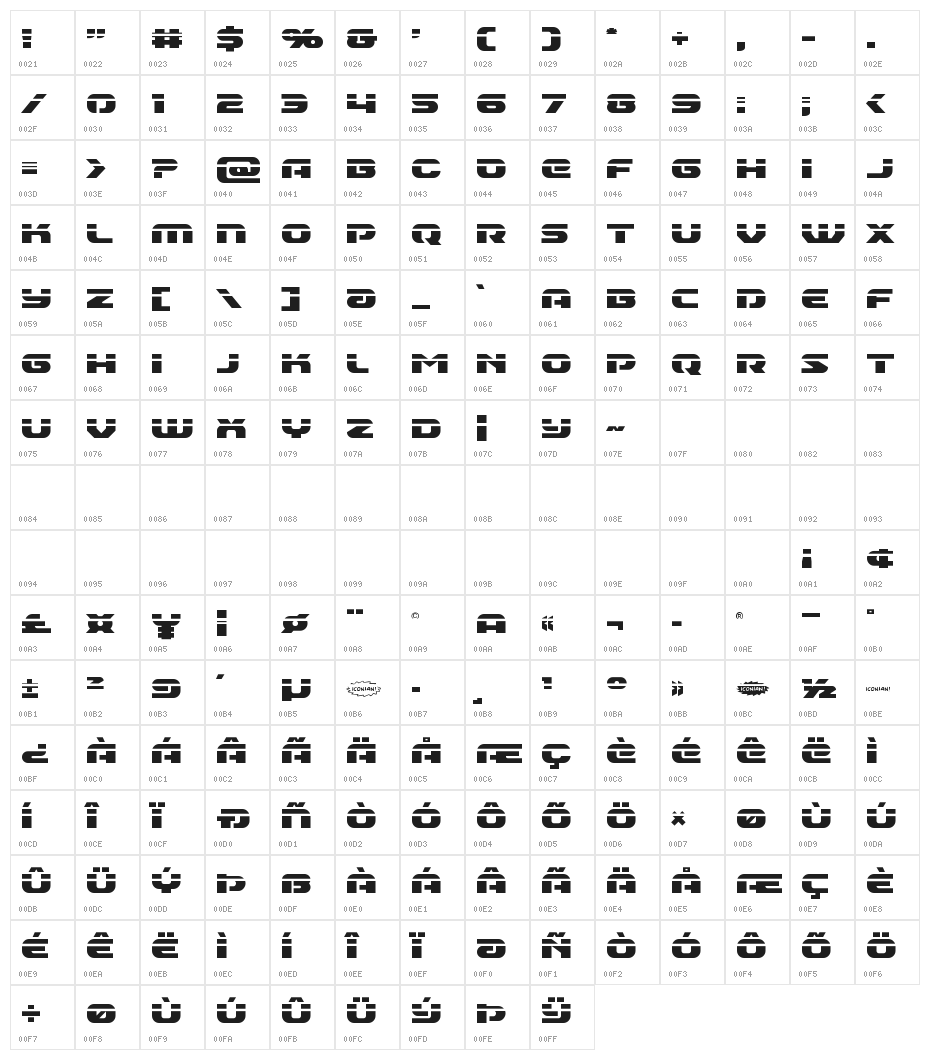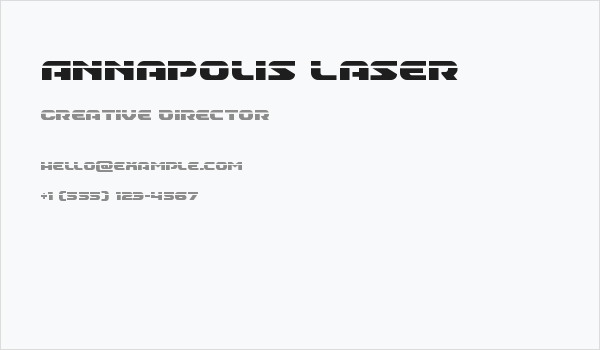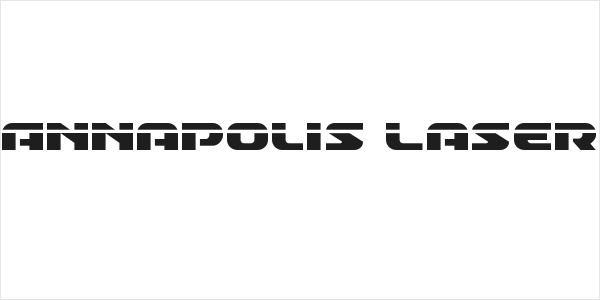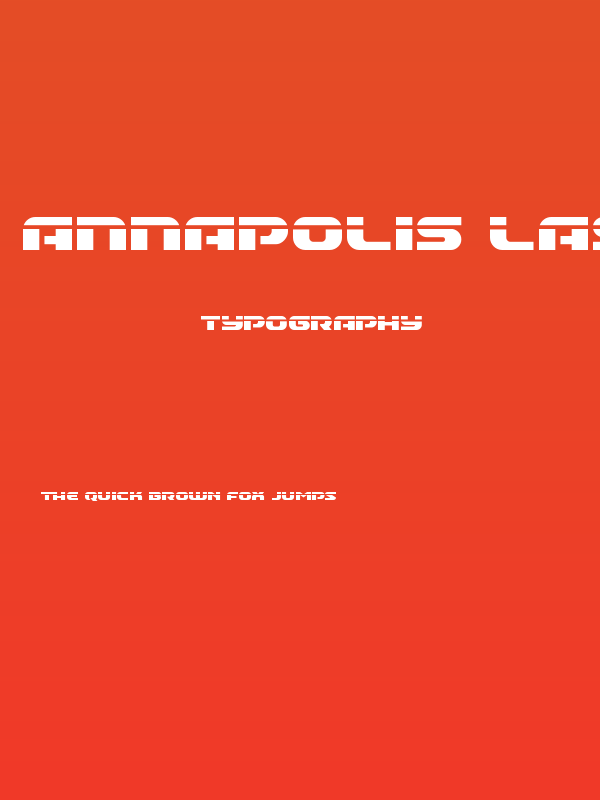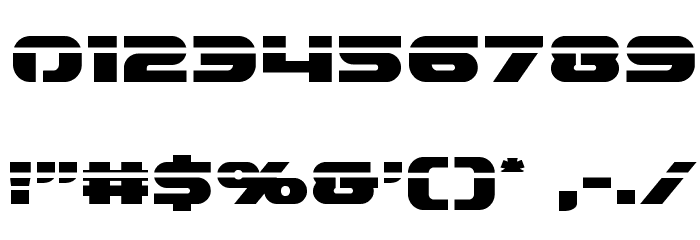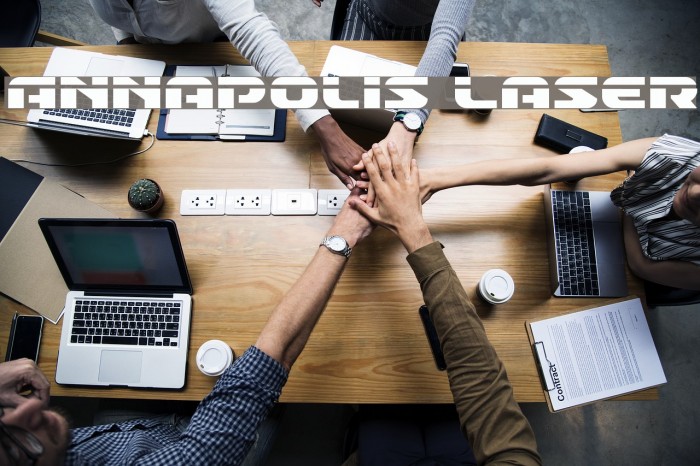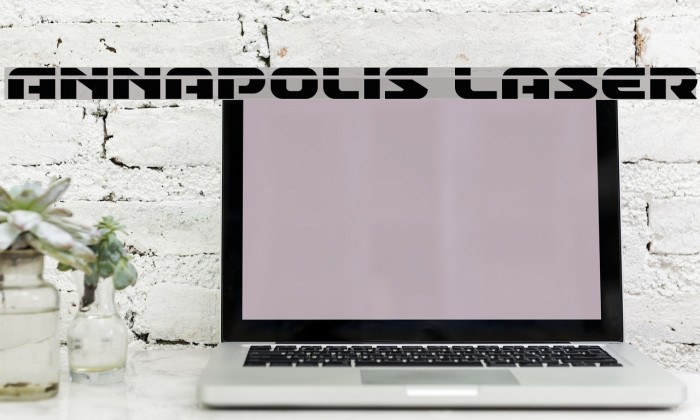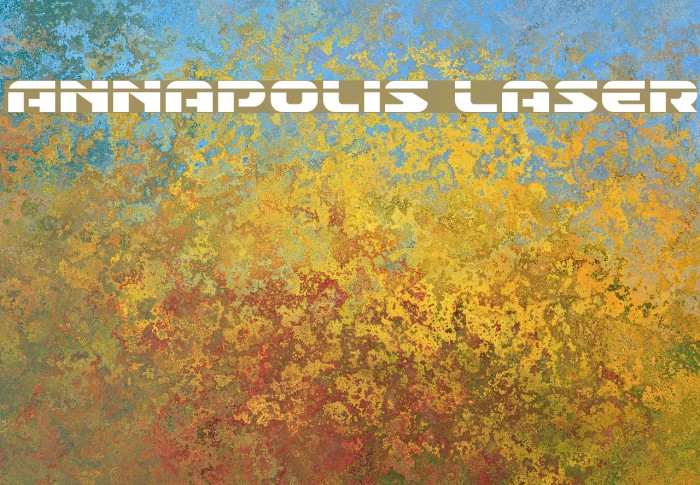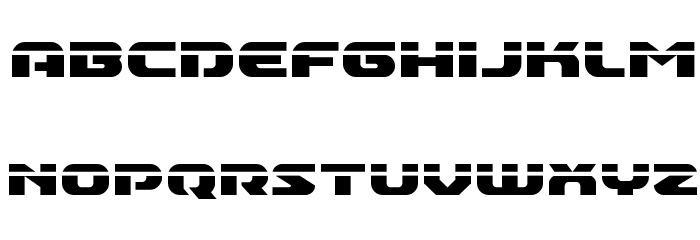
Annapolis Laser Font
Annapolis Laser Description
This font exhibits a futuristic and bold design, characterized by its geometric and angular shapes. The letters are constructed with a stencil-like appearance, featuring breaks in the strokes that add a dynamic and modern feel. The uppercase and lowercase letters maintain a consistent style, with a strong emphasis on horizontal and vertical lines. The numerals and special characters follow the same design principles, ensuring uniformity across all glyphs. This font's unique style makes it stand out, ideal for projects that require a modern and edgy look.
ANNAPOLIS-LASER UPPERCASE
ANNAPOLIS-LASER LOWERCASE
ANNAPOLIS-LASER OTHER CHARS
| Proposed Projects | Ideal for technology branding, sci-fi posters, video game titles, and modern advertising. |